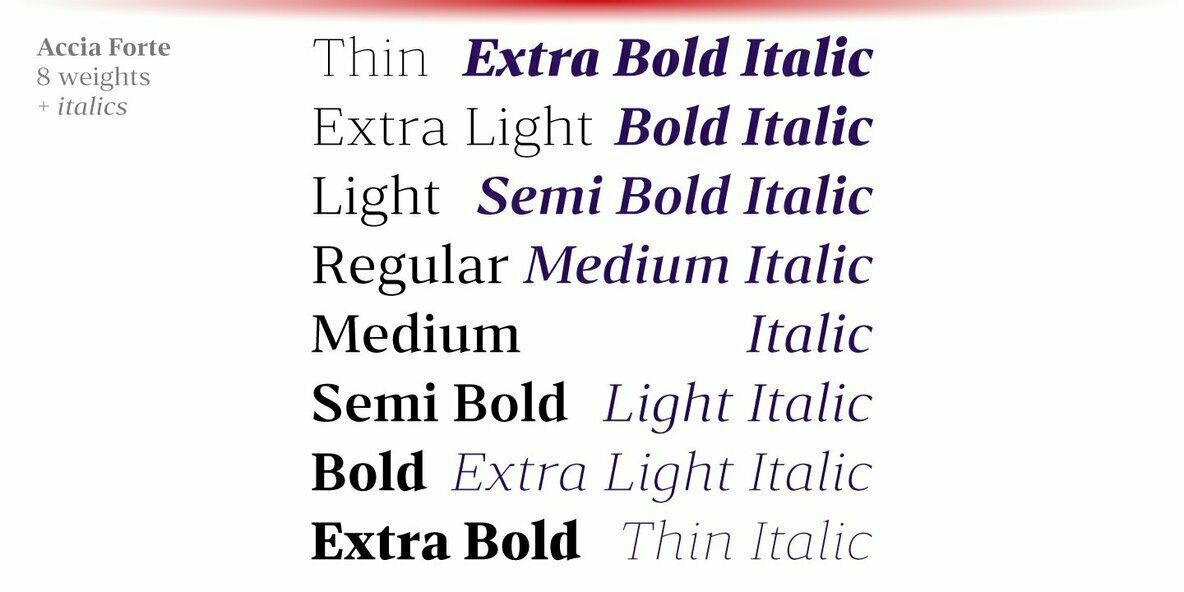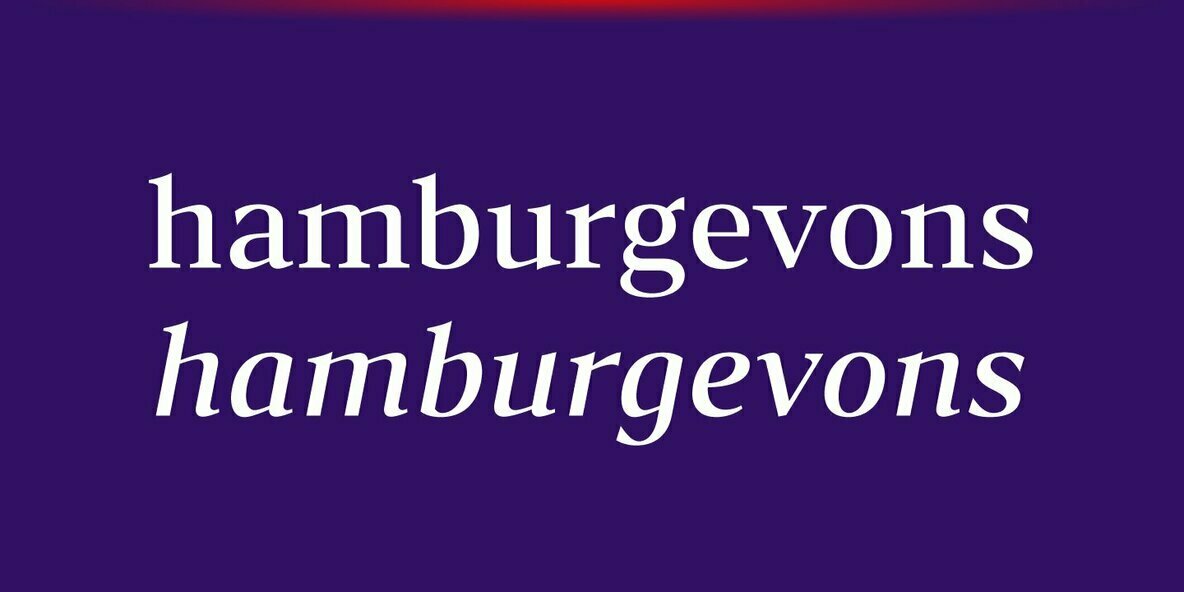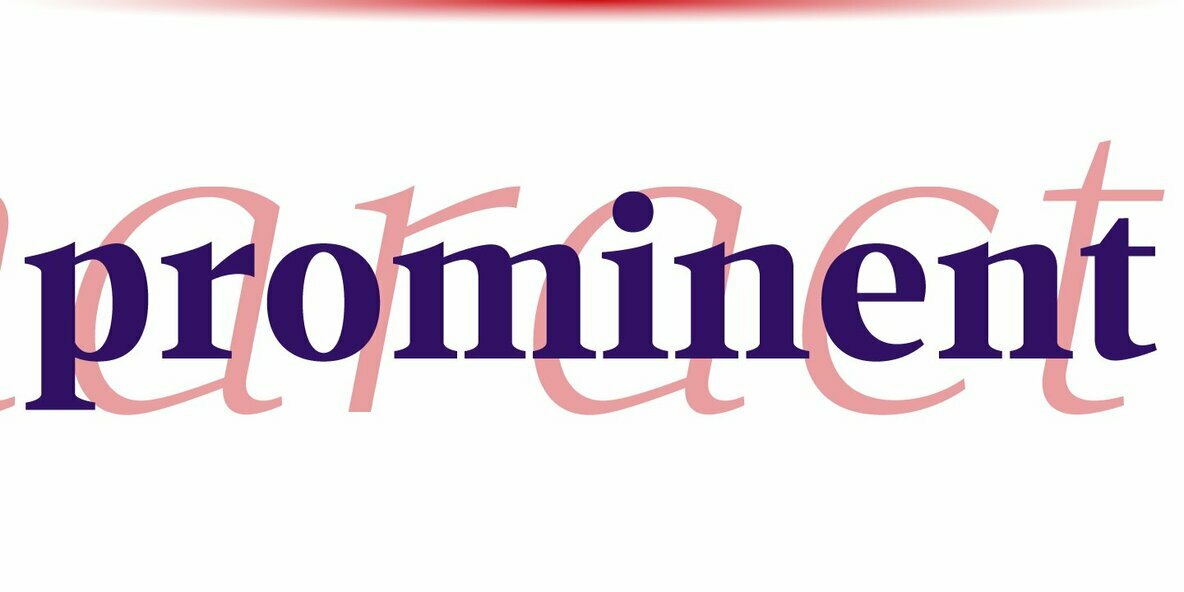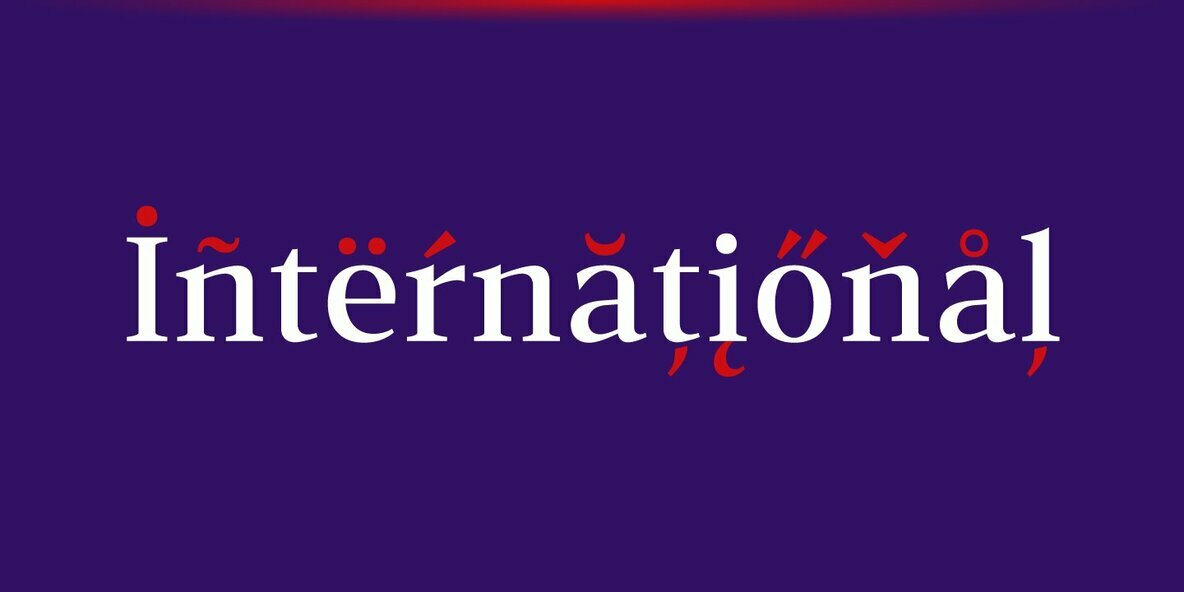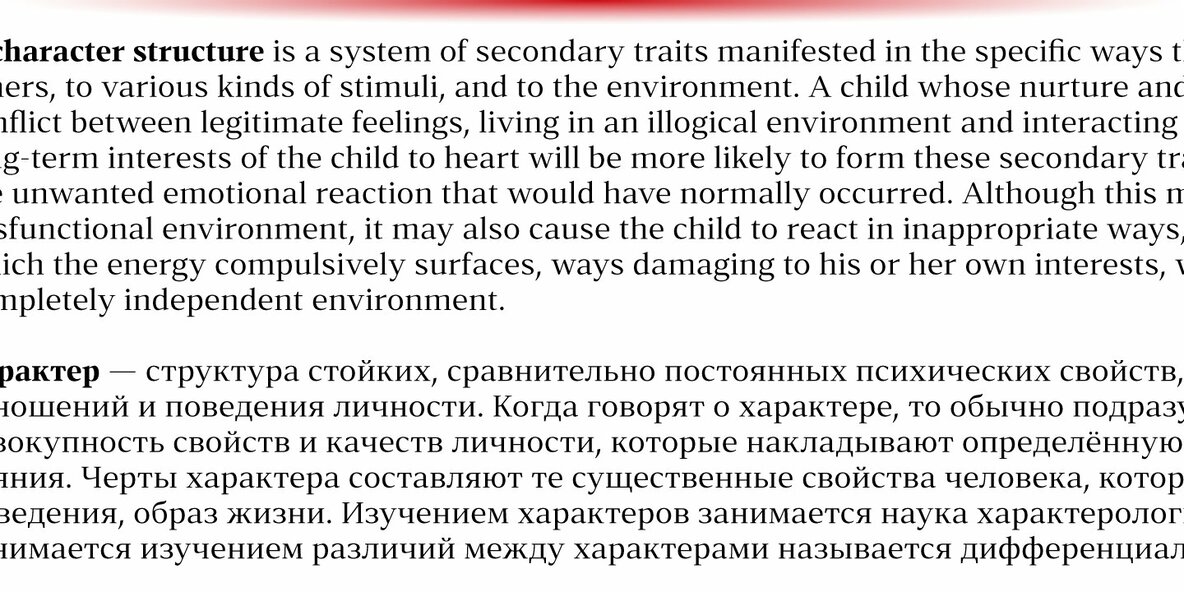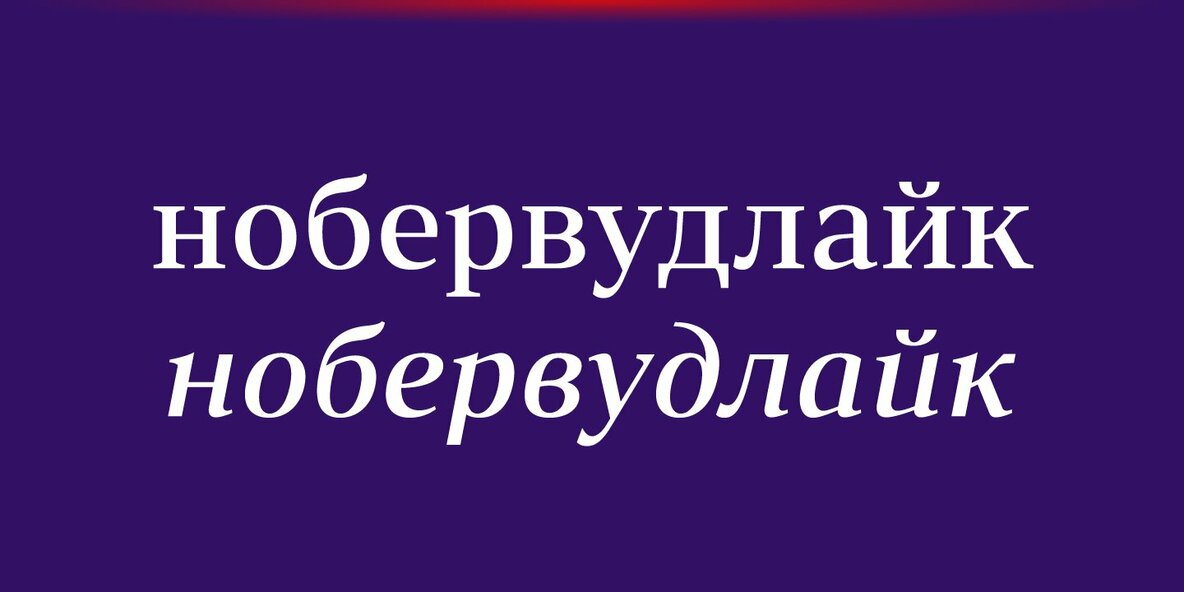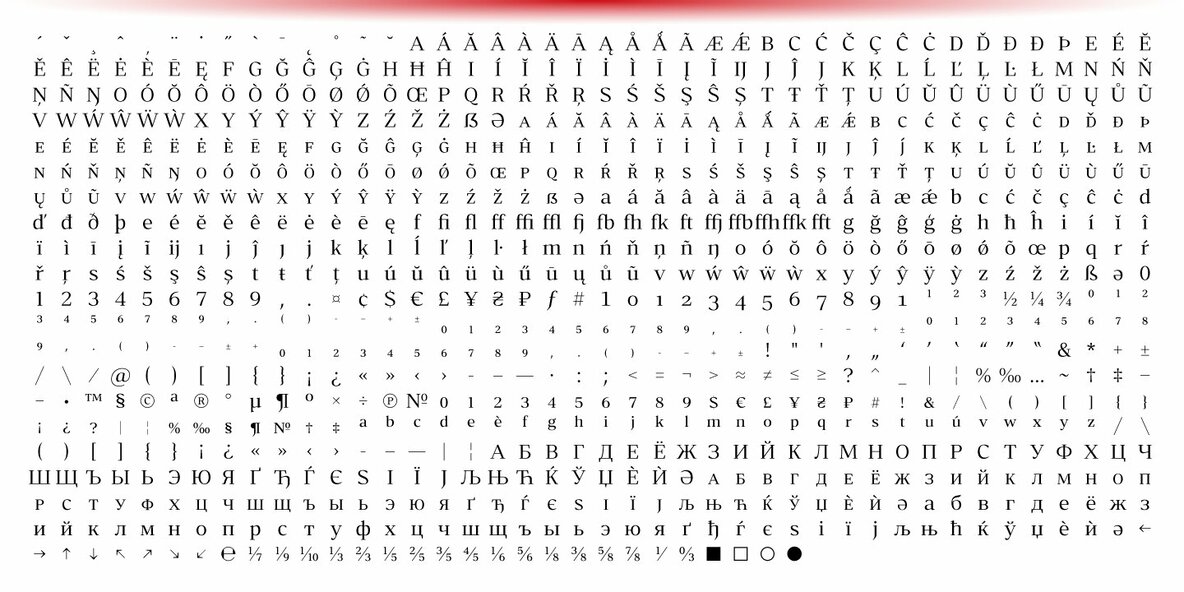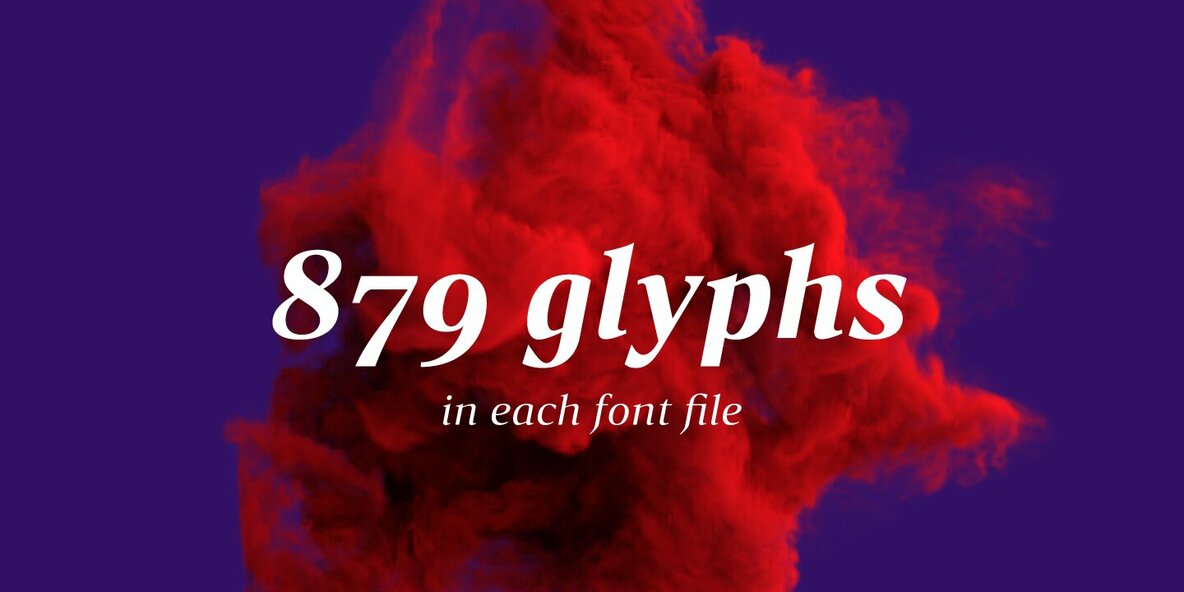
Accia Forte Font
Accia Forte is a strong serif typeface with high contrast, large x-height and prominent serifs. Its loud contemporary feel will be ideal for titles as well as posters and web appearance.
The font family contains 8 weights from Thin to Extra Bold, with matching true italics. It supports extensive language support including Cyrillic, as well as numerous OpenType features such as small caps, ligatures, several sets of figures, case-sensitive punctuation, ordinals.
Accia Forte is a member of Accia Type System. It encompasses five typefaces ranging from sans-serif to expressive serif, giving you the possibility to create sophisticated cohesive designs. Accia Type system consists of Accia Sans, Accia Flare, Accia Piano, Accia Moderato, and Accia Forte.